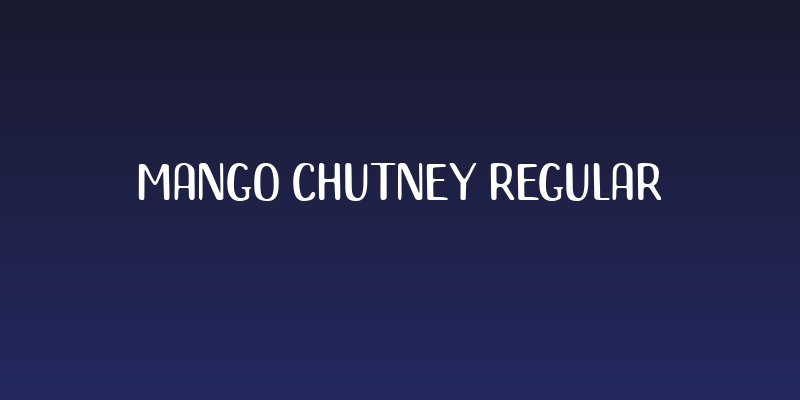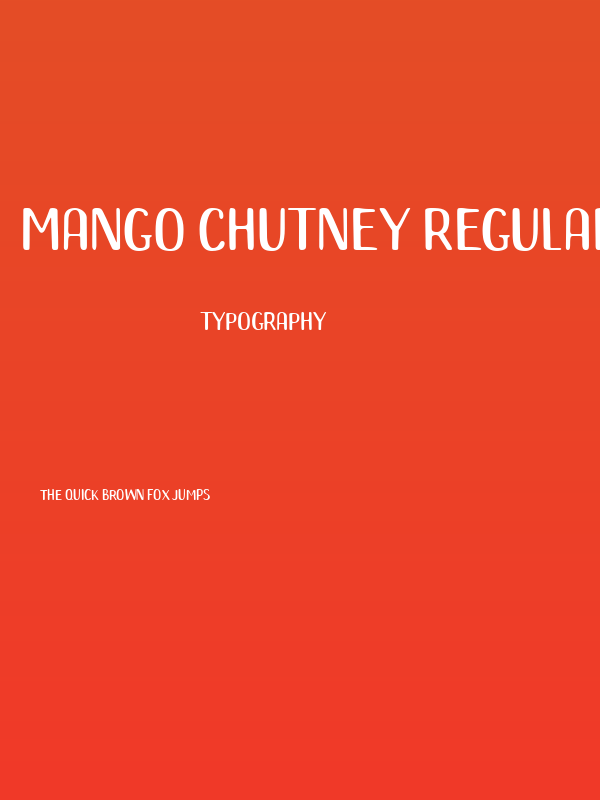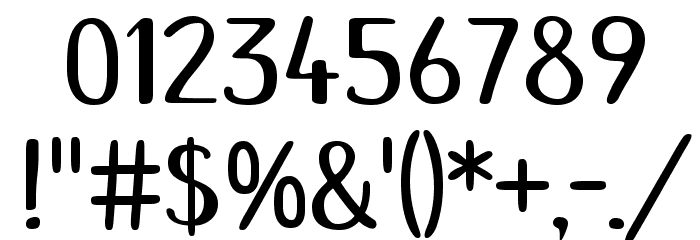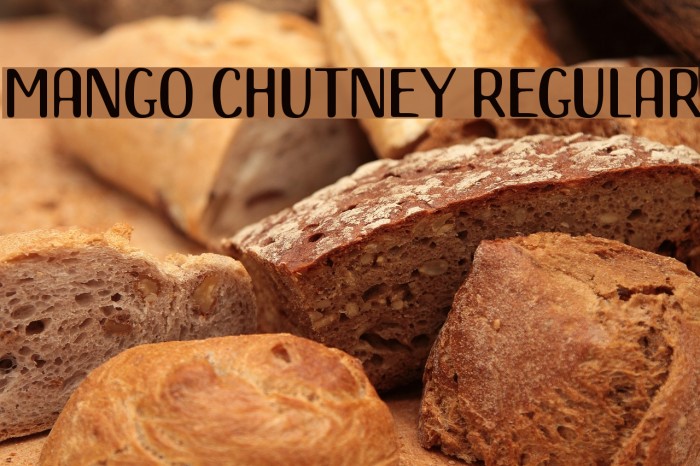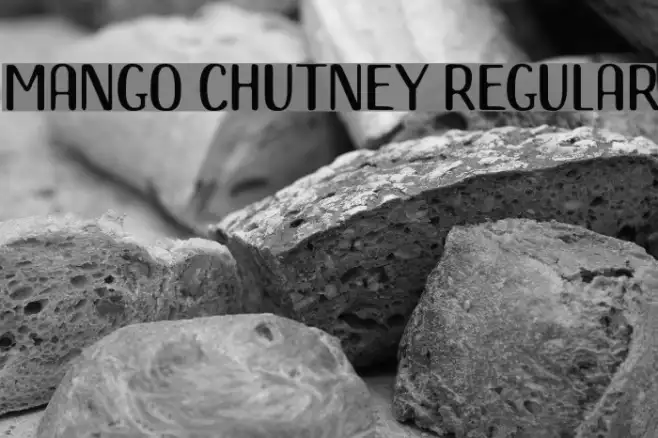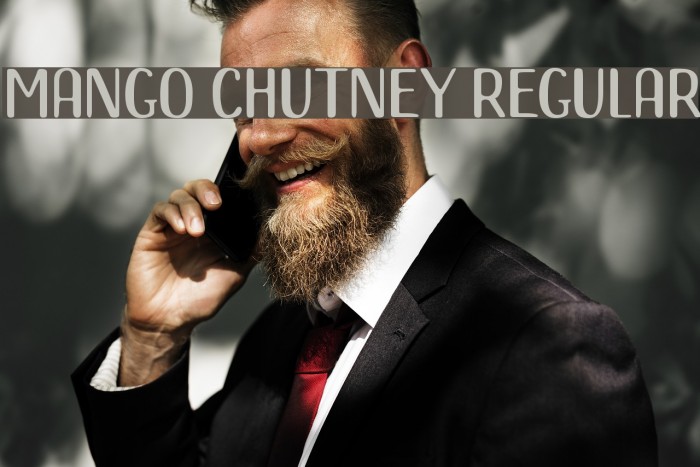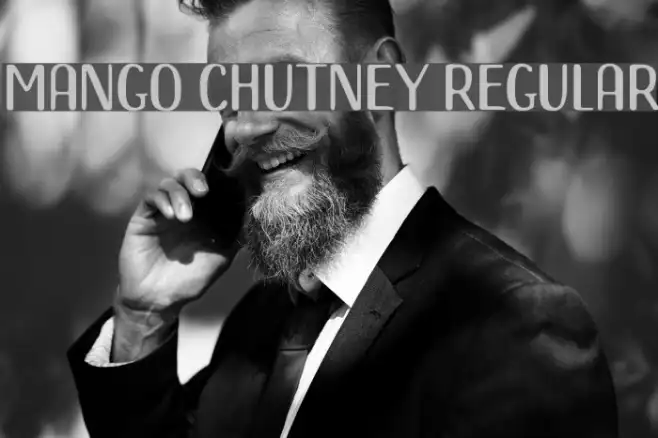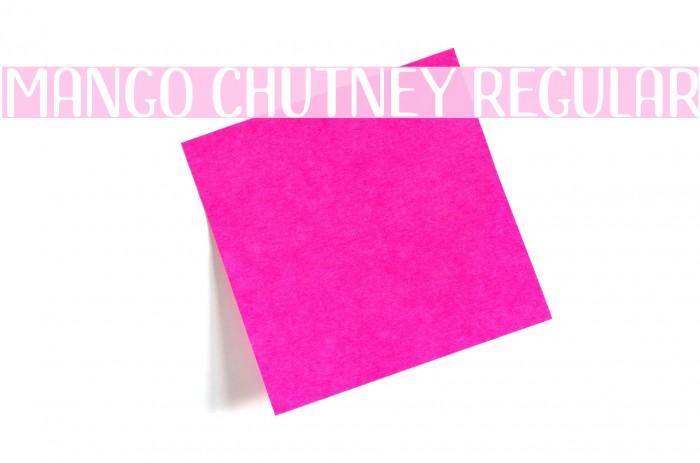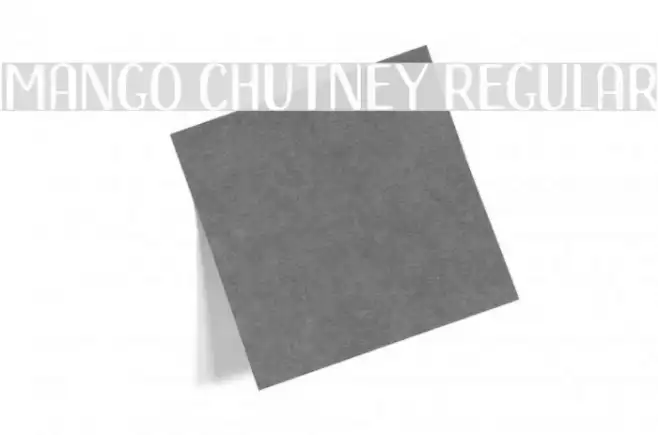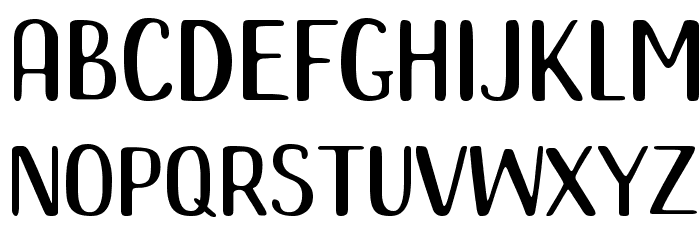
Mango Chutney Regular Font
Mango Chutney Regular Description
This font features a playful and modern design with rounded edges and a smooth flow. The characters are slightly condensed, giving it a unique and friendly appearance. The uppercase and lowercase letters maintain a consistent style, with a slight variation in stroke width that adds a touch of elegance. The numerals are clear and easy to read, complementing the overall aesthetic. Special characters are well-integrated, maintaining the font's cohesive look. This font is versatile, suitable for both digital and print media, and can add a contemporary flair to any project.
| Proposed Projects | Ideal for branding, packaging, social media graphics, and children's books. |